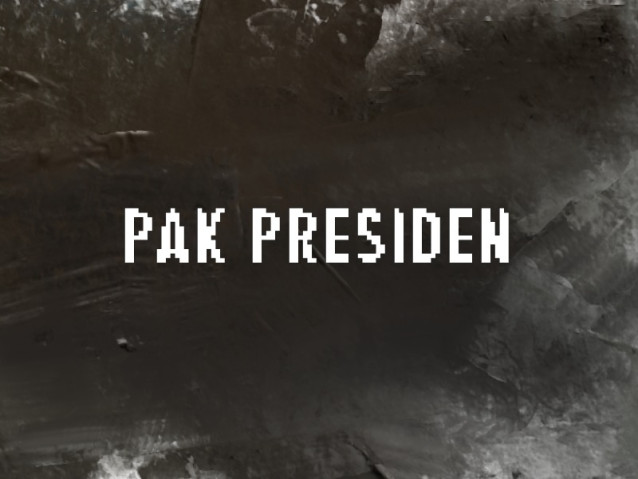
Pak Presiden Font
Pak Presiden Font is a bold pixel-style font inspired by classic 8-bit and retro games. With sharp edges and a strong visual identity, it is ideal for games, logos, posters, and digital designs that aim for a nostalgic yet powerful look.